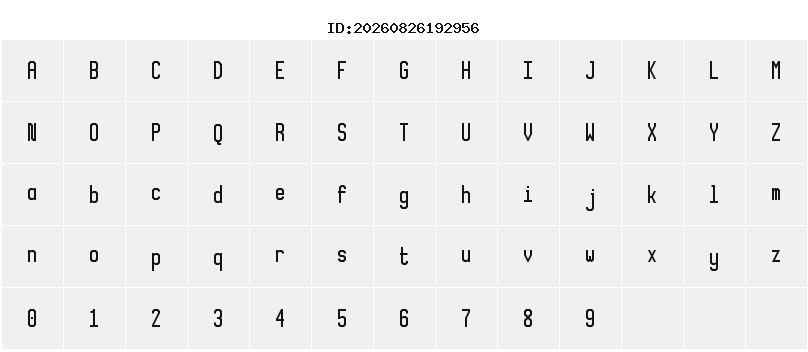
• Font Name: XLMonoAlt
• Full Font Name: XLMonoAlt Regular
• Designer: fontcollector
• Description: “XLMonoAlt” was built with FontStruct “XLMonoAlt” is based on “XLMono” by “fontcollector” (http://fontstruct.com/fontstructors/fontcollector), which is based on “XLProportional” by “fontcollector” (http://fontstruct.com/fontstructors/fontcollector), which is based on “OctagonoPropC” by “fontcollector” (http://fontstruct.com/fontstructors/fontcollector), which is based on “OctagonoMonoC” by “fontcollector” (http://fontstruct.com/fontstructors/fontcollector), which is based on “OctagonoMonoA” by “fontcollector” (http://fontstruct.com/fontstructors/fontcollector), which is based on “SkinnyVinnieMono” by “fontcollector” (http://fontstruct.com/fontstructors/fontcollector), which is based on “SkinnyMinnieMono” by “fontcollector” (http://fontstruct.com/fontstructors/fontcollector), which is based on “EZMonoG” by “fontcollector” (http://fontstruct.com/fontstructors/fontcollector), which is based on “EZMonoF” by “fontcollector” (http://fontstruct.com/fontstructors/fontcollector), which is based on “EZMonoA” by “fontcollector” (http://fontstruct.com/fontstructors/fontcollector)
About XLMonoAlt.ttf
XLMonoAlt.ttf is a modern, elegant sans-serif font designed for ultimate readability and visual harmony. Perfect for branding, headlines, web design, and print materials.